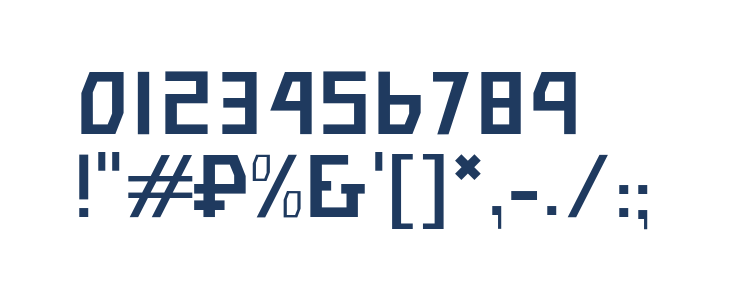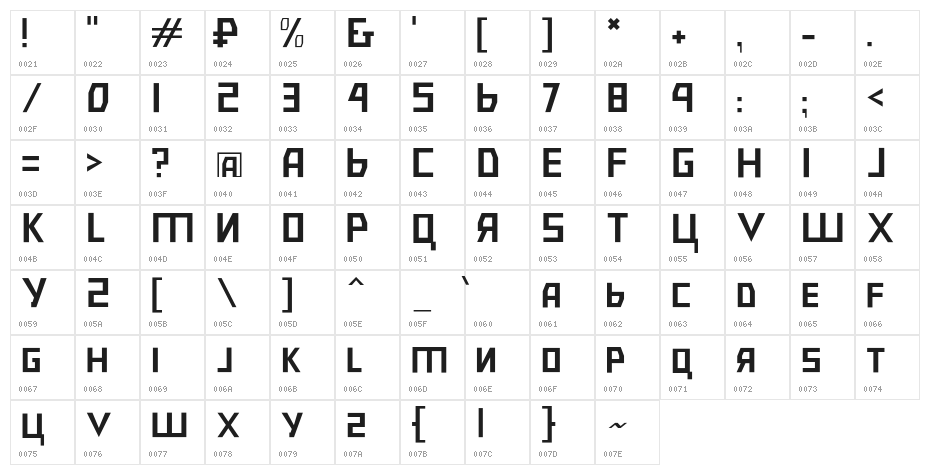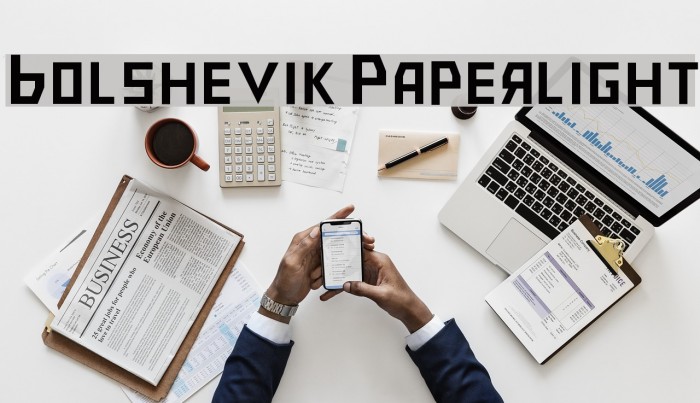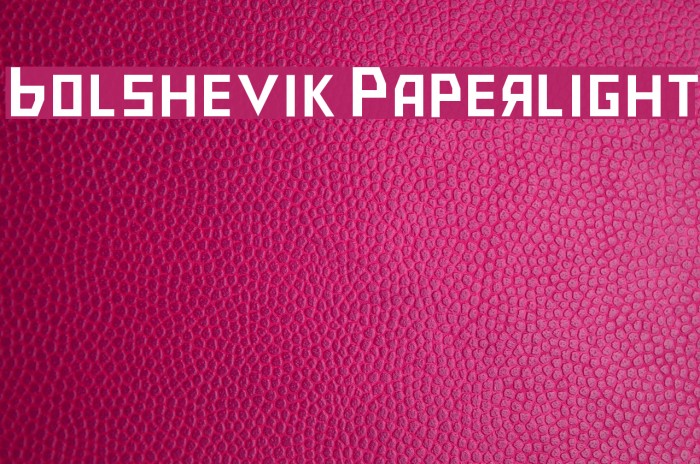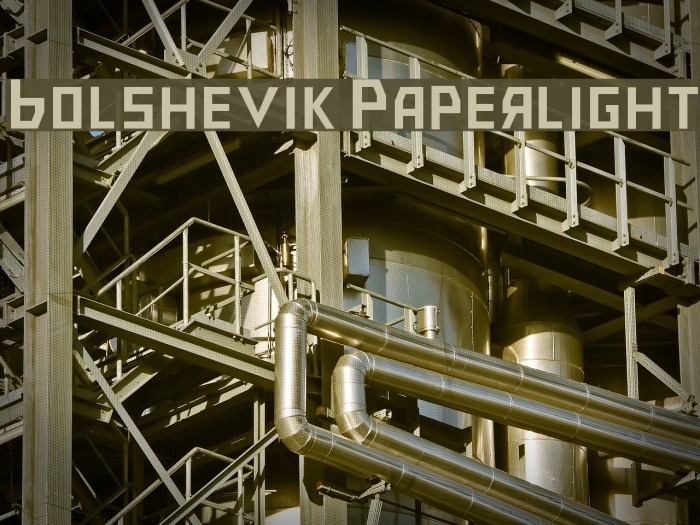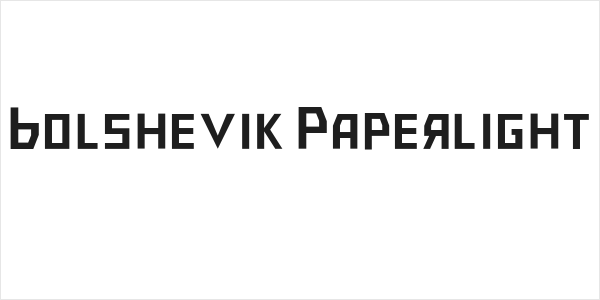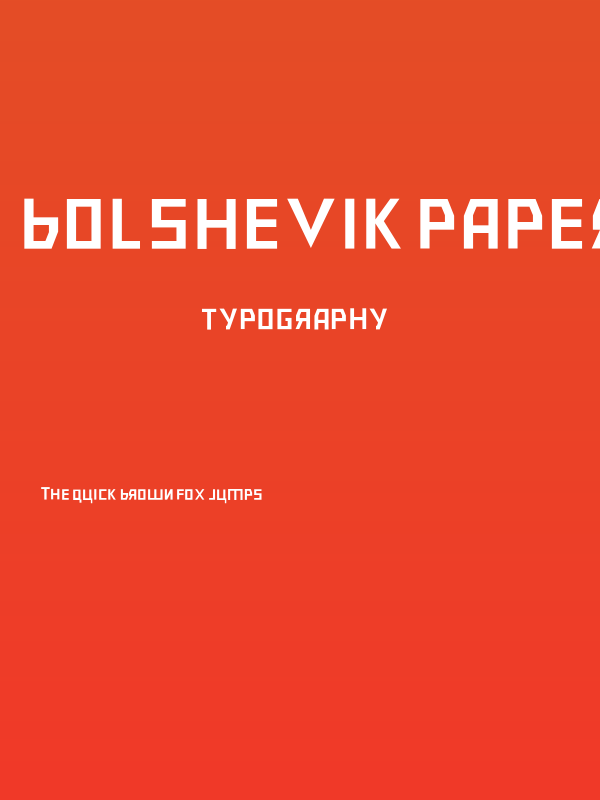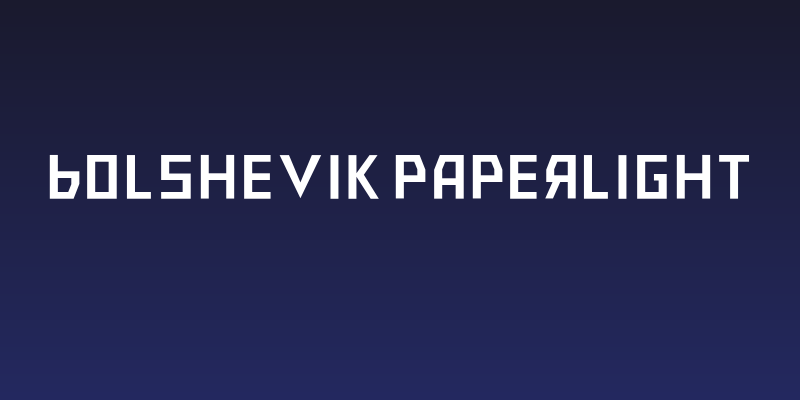
Bolshevik Paperlight Font
Bolshevik Paperlight Description
This font features a bold, geometric design with a strong, angular presence. The characters are constructed with sharp edges and straight lines, giving it a modern and industrial feel. The uppercase and lowercase letters maintain a consistent style, with a uniform height and width that enhances readability. The numerals and special characters follow the same design principles, ensuring a cohesive look across all elements. The font's distinct style makes it suitable for projects that require a bold and impactful visual statement.